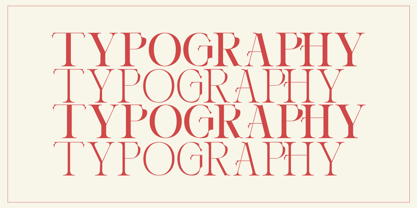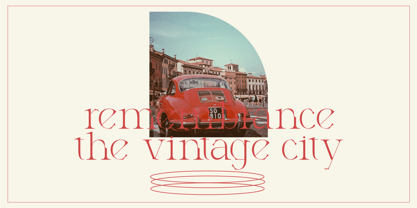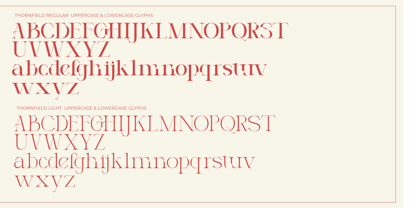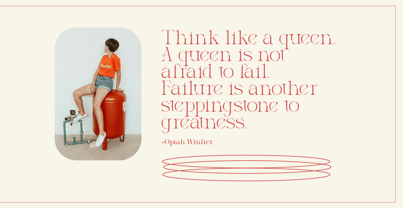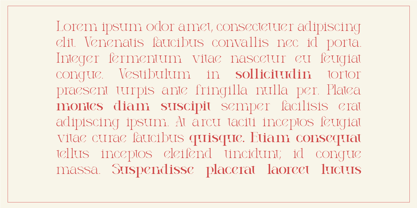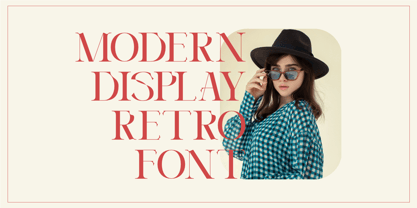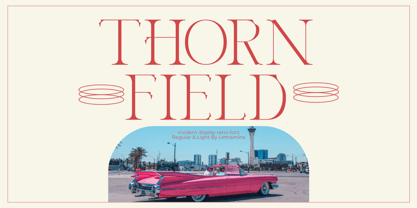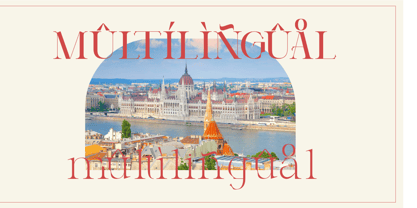
Thornfield
by Lettramina Studio
The Thornfield Font Family was designed by Mukshal Mina and published by Lettramina Studio. Thornfield contains 2 styles and family package options. More about this family
contemporary appeal. Carefully crafted with a unique and elegant character, Thornfield comes in two distinct styles: Regular and Light, offering versatility for a wide range of creative projects.
The font is distinguished by its refined letterforms with subtle ornamental details, creating a perfect balance between nostalgic beauty and modern sophistication. Thornfield is ideal for branding, posters, book covers, packaging designs, invitations, and editorial works that require a timeless and elegant atmosphere.